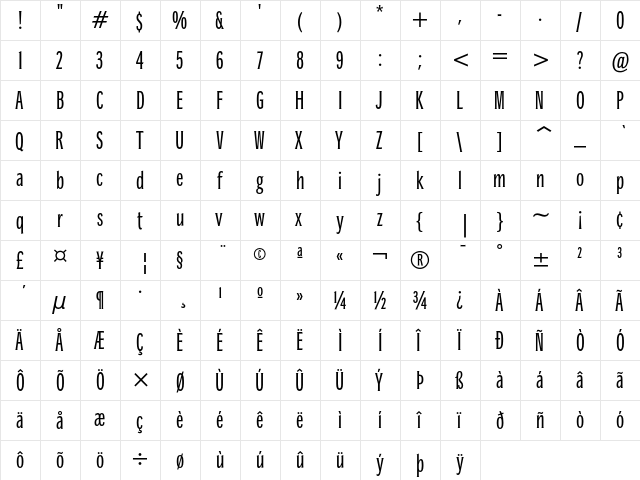
Baltra Regular
Design Context for Baltra Typeface
Baltra takes a measured approach to typography — its balanced proportions and neutral character make it a reliable workhorse for both digital and print work.
Pro Tip: Use Baltra in both headline and body roles to test its range before committing to a single application.